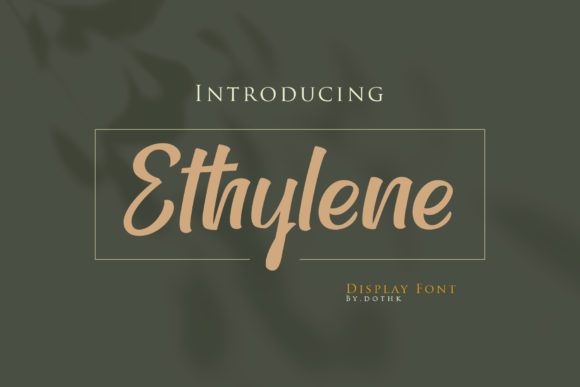
Prepare to fall head over heels for Ethylene, the script font that will transform your creative visions into captivating masterpieces. Crafted by the talented Arief.hk, Ethylene is not just a font; it's an invitation to unleash your imagination and create designs that dance off the page.
Step into a world of endless possibilities with Ethylene, the ultimate font for lifestyle blogs. Each letter is a work of art, lovingly crafted with a unique and beautiful touch that will make your words leap from the screen and captivate your audience.
Picture this: your blog posts adorned with Ethylene's elegant curves, drawing readers into your captivating stories. Your branding will radiate with a touch of sophistication, leaving a lasting impression that whispers of your discerning taste. Quotes will take on a new life, becoming works of art that inspire and resonate with your followers.
Ethylene is more than just a font; it's your creative muse, a gateway to a world where your designs come alive with a life of their own. Its timeless beauty will endure, ensuring that your creations remain captivating for years to come.
Don't settle for ordinary fonts. Embrace Ethylene, the script font that will transform your designs into unforgettable masterpieces, leaving an indelible mark on your audience's hearts.